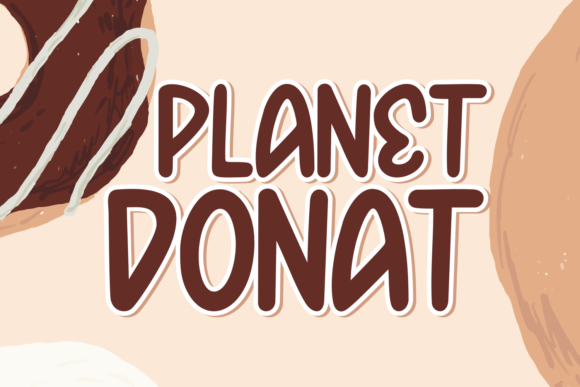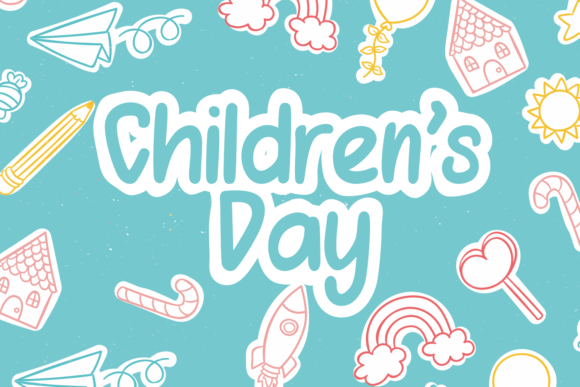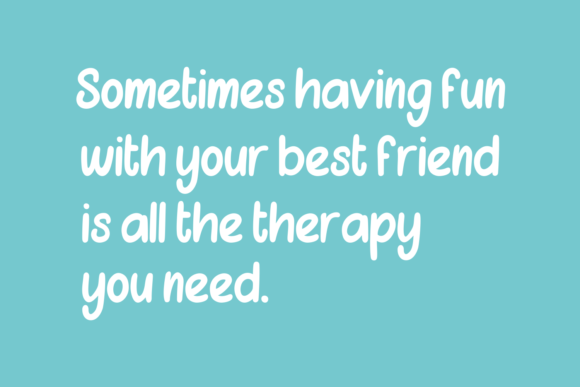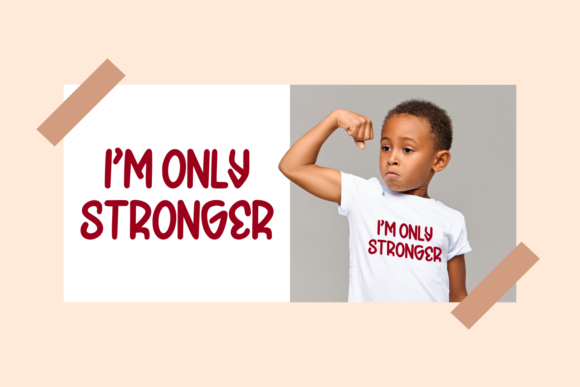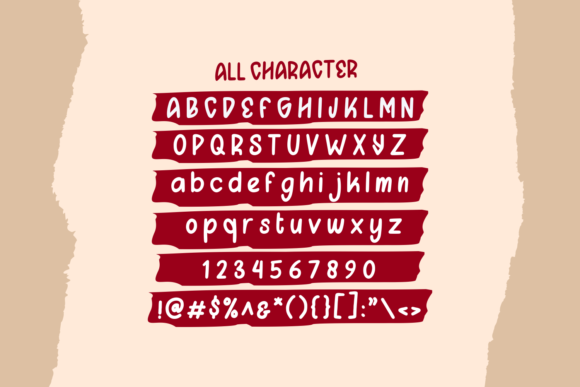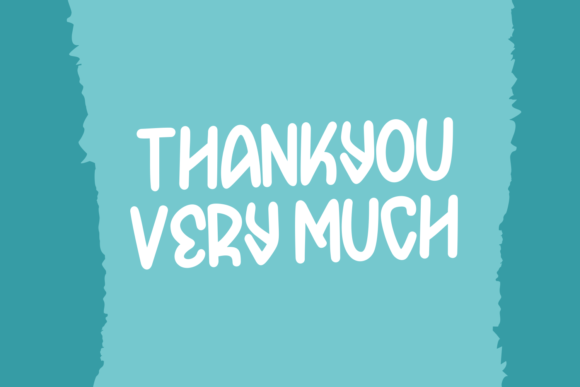
Introducing Benjoet Font: The Cute and Quirky Paint-Brushed Handwritten Font
Are you tired of using the same old fonts in your designs? Look no further! Benjoet Font is here to add a touch of whimsy and personality to your creations. This cute, paint-brushed handwritten font is simple yet packs a strong visual punch, making it the perfect addition to your typography arsenal.
The Characteristics of Benjoet Font
Benjoet Font is a one-of-a-kind typeface that boasts a unique, hand-painted look. Its irregular strokes and subtle imperfections give it a charming, organic feel that’s sure to capture the attention of your audience. The font’s simplicity is part of its charm, making it versatile enough to be used in a wide range of design applications, from branding and packaging to digital media and crafts.
Why Choose Benjoet Font?
So, what sets Benjoet Font apart from other fonts out there? Here are just a few reasons why designers and crafters are falling in love with this adorable typeface:
• Unique Visual Effect: Benjoet Font’s paint-brushed texture gives it a distinctive look that’s sure to make your designs stand out from the crowd.
• Cute and Playful: This font’s whimsical nature makes it perfect for designs that require a touch of personality and fun.
• Versatile: Benjoet Font can be used in a variety of design applications, from digital media to print materials.
• Easy to Read: Despite its hand-painted look, Benjoet Font is surprisingly legible, making it suitable for use in body text as well as headlines.
Using Benjoet Font in Your Designs
Benjoet Font is incredibly easy to use, even for those who are new to design. Here are a few tips to get you started:
• Pair it with Other Fonts: Benjoet Font pairs perfectly with clean, sans-serif fonts like Arial or Helvetica. Try using it as a headline font and pairing it with a simpler font for body text.
• Experiment with Colors: The paint-brushed texture of Benjoet Font looks amazing in bold, bright colors. Don’t be afraid to get creative and try out different color combinations.
• Add Texture and Patterns: Take your designs to the next level by adding texture and patterns to your Benjoet Font text. This can be a great way to add depth and interest to your designs.
Benjoet Font in the World of Crafting
Benjoet Font isn’t just for designers! Crafters and DIY enthusiasts are also falling in love with this adorable typeface. Here are a few ways you can use Benjoet Font in your crafting projects:
• Handmade Cards and Invitations: Add a personal touch to your handmade cards and invitations with Benjoet Font.
• Journaling and Scrapbooking: Use Benjoet Font to add a decorative touch to your journal pages and scrapbook layouts.
• Custom Signs and Banners: Create custom signs and banners with Benjoet Font for a unique and eye-catching display.
Benjoet Font is a one-of-a-kind typeface that’s sure to bring a touch of whimsy and personality to your designs. Its unique, paint-brushed texture and cute, playful vibe make it perfect for a wide range of design applications, from branding and packaging to digital media and crafts. So why settle for boring, generic fonts when you can add a touch of charm and character to your creations with Benjoet Font?